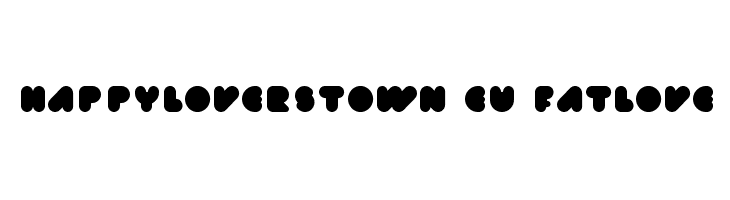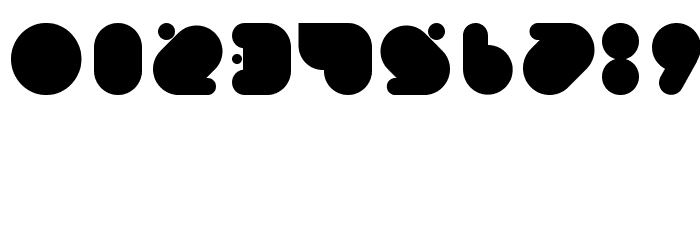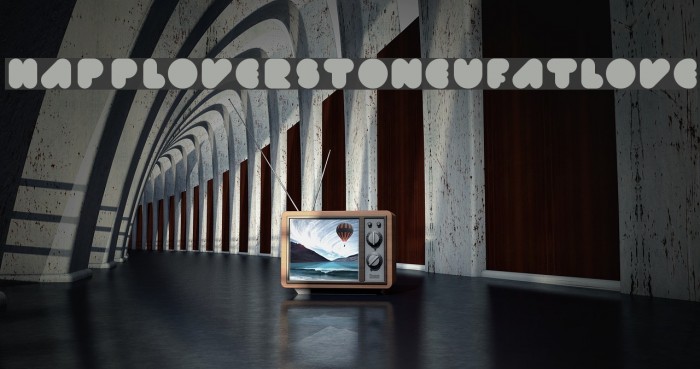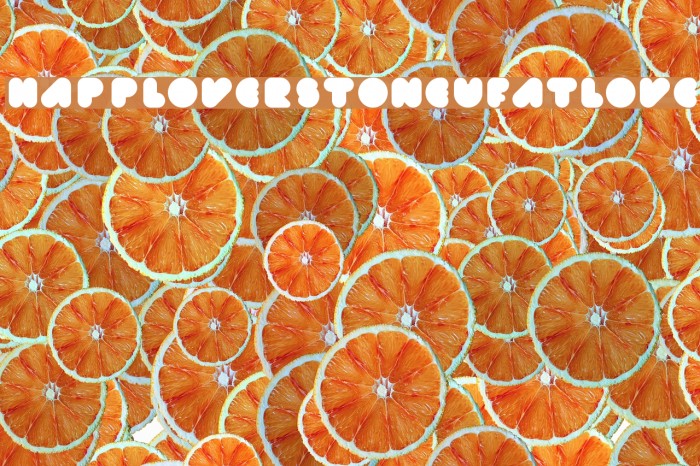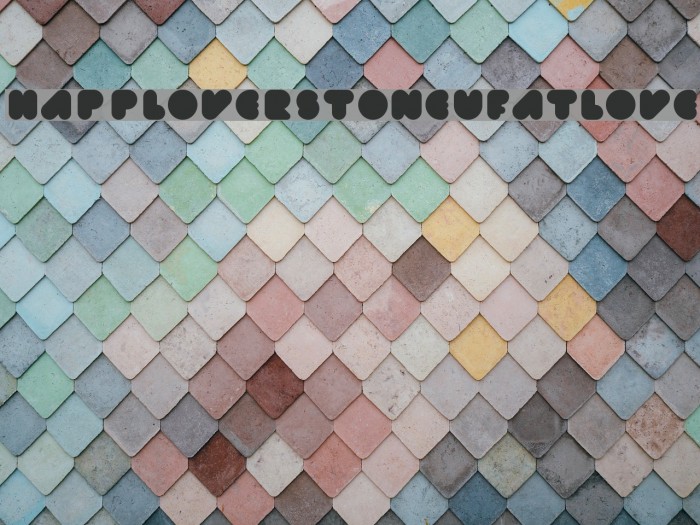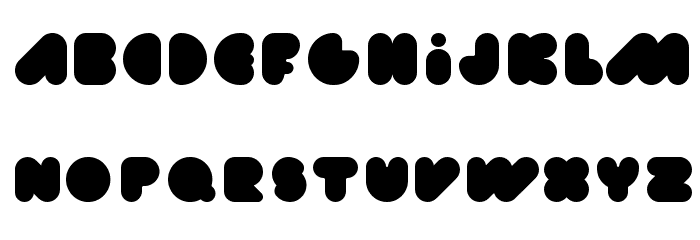
happyloverstown.eu_fatlove Font
This font features a playful and bold design with rounded, bubble-like characters that exude a sense of fun and whimsy. The letters are uniformly thick, creating a cohesive and solid appearance. The overall style is reminiscent of retro or vintage aesthetics, making it ideal for projects that require a touch of nostalgia. The characters are tightly spaced, enhancing the compact and chunky feel of the font. Its unique style makes it stand out, perfect for eye-catching headlines or creative designs.
A playful, bold font with rounded, bubble-like characters ideal for retro designs.
• Proposed Projects: This font is perfect for children's books, playful branding, retro-themed posters, and creative social media graphics.
• Category: Decorative/Display
• Bold: Yes
• Italic: No
• Weight: Bold
• Width: Normal
• Character Spacing: Tight
• Contrast: Low
• Overall Style: Retro, Playful
• Use Case: Headlines, Logos, Posters